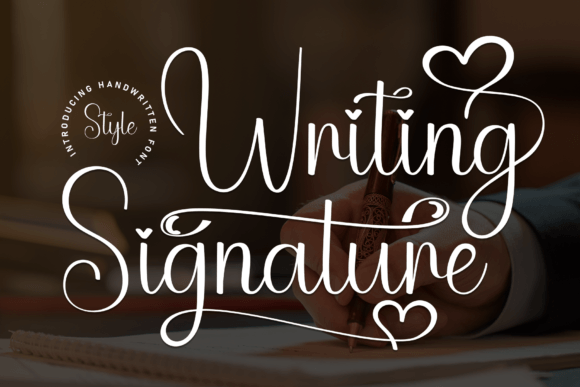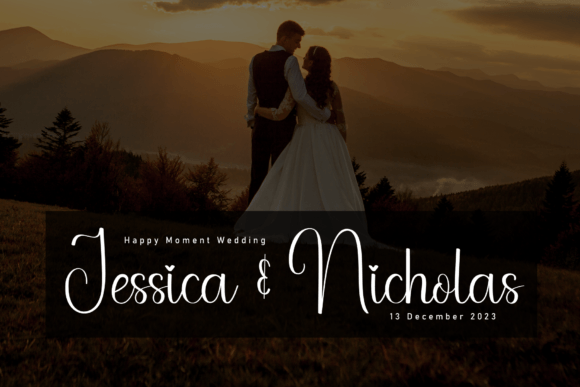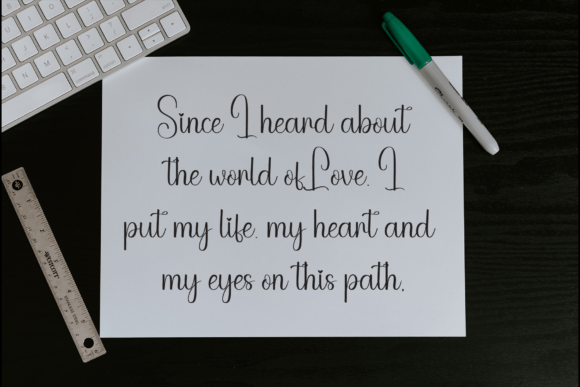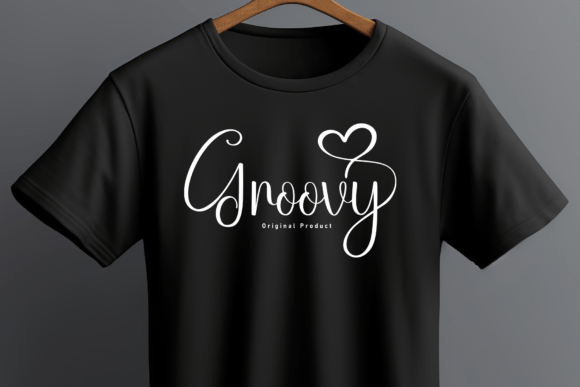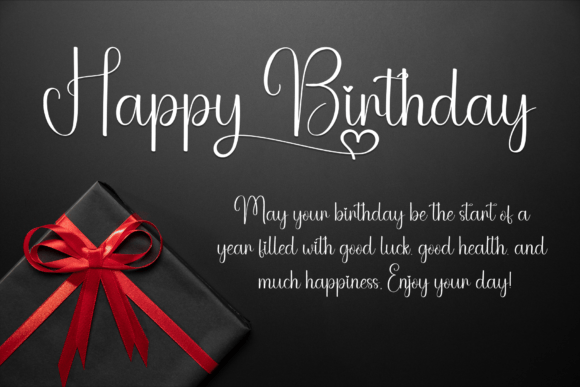
Writing Signature Font
Meet Writing Signature, a charming handwritten font that adds a personal touch to your projects. This font comes with delightful heart swashes and cute little hearts above the letters ‘i’ and ‘j’, infusing your text with warmth and affection. Perfect for signatures, invitations, or any design where a touch of personal flair is desired. Elevate your work with Writing Signature and let your creativity flow with heartfelt details.